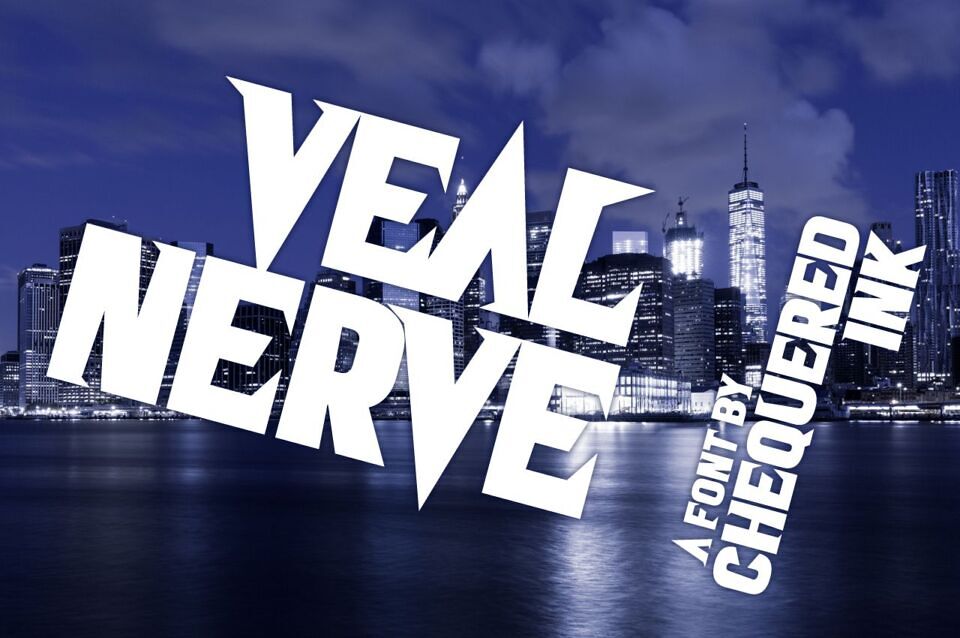
The Veal Nerve font features bold, angular letterforms with sharp edges and dynamic slants, giving it a strong, modern, and somewhat aggressive look. Its geometric structure and wide spacing contribute to its dramatic, eye-catching style, making it well-suited for attention-grabbing headlines or graphic designs.
The use of clean lines with an unconventional tilt offers a sense of movement and energy, perfect for contemporary branding or projects that need a bold statement. The font’s unique character adds a distinctive touch, maintaining both readability and flair.